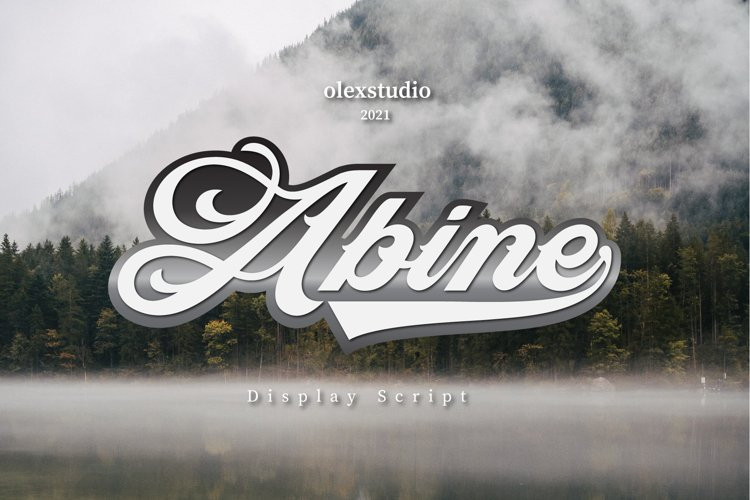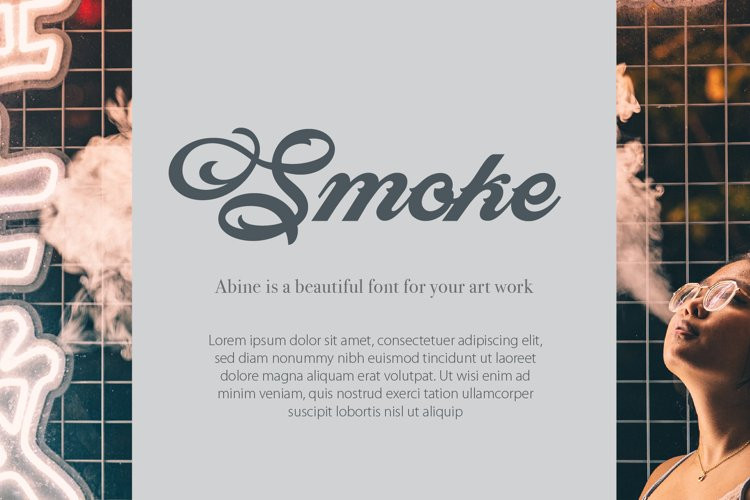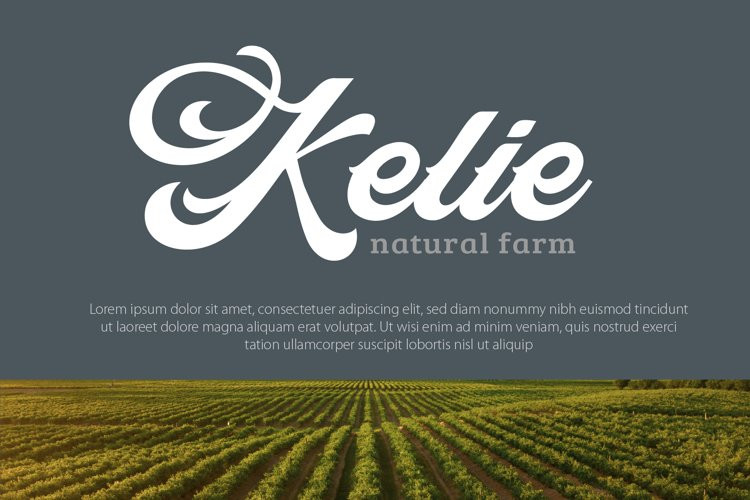
Abine Font
Abine FontAbine – Display Script will look gorgeous on all your designs, invitation, poster design, book design, branding materials, logo’s, t-shirt and all project design other.